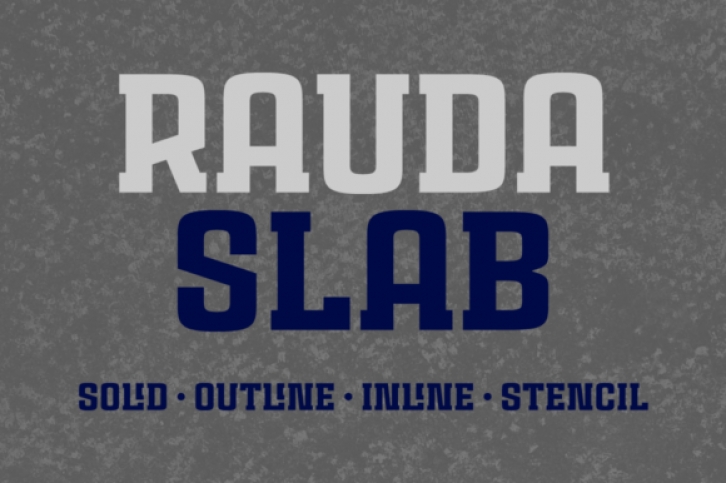
Rauda Slab is a slab sans serif display font created by Pablo Balcells for the Graviton Foundry.
Rauda Slab contists out of 8 different styles. Each style has multi-lingual support. Rauda Slab has sharp angles that provide a strong and solid appearance.